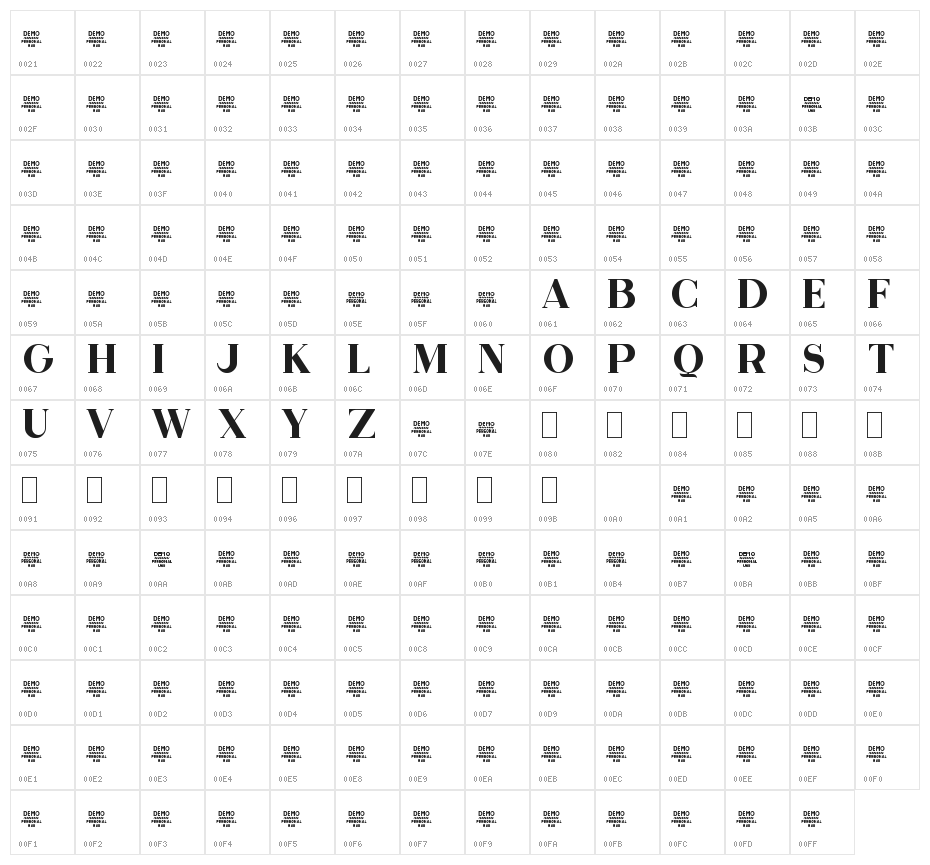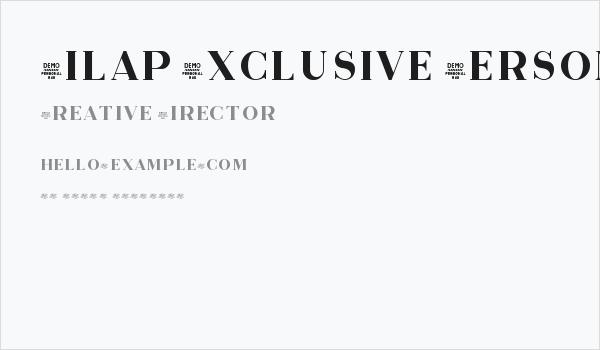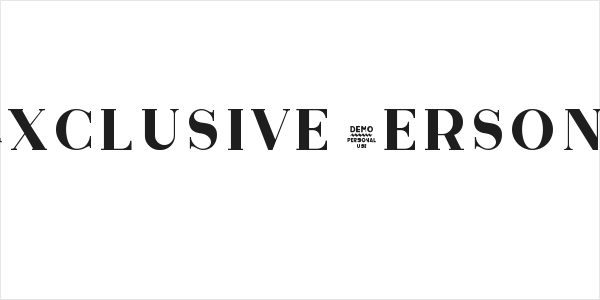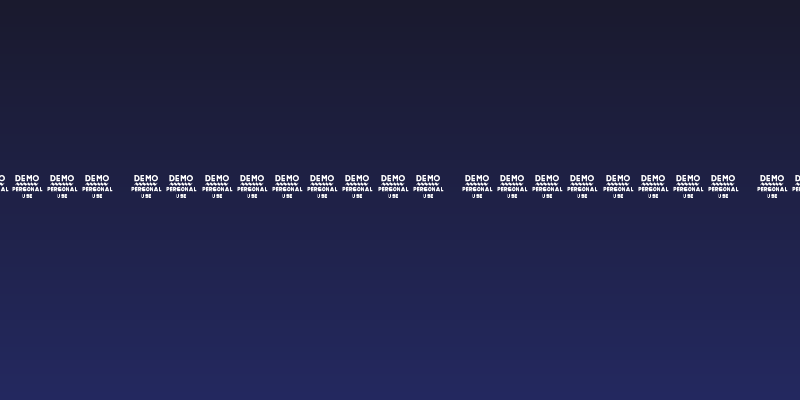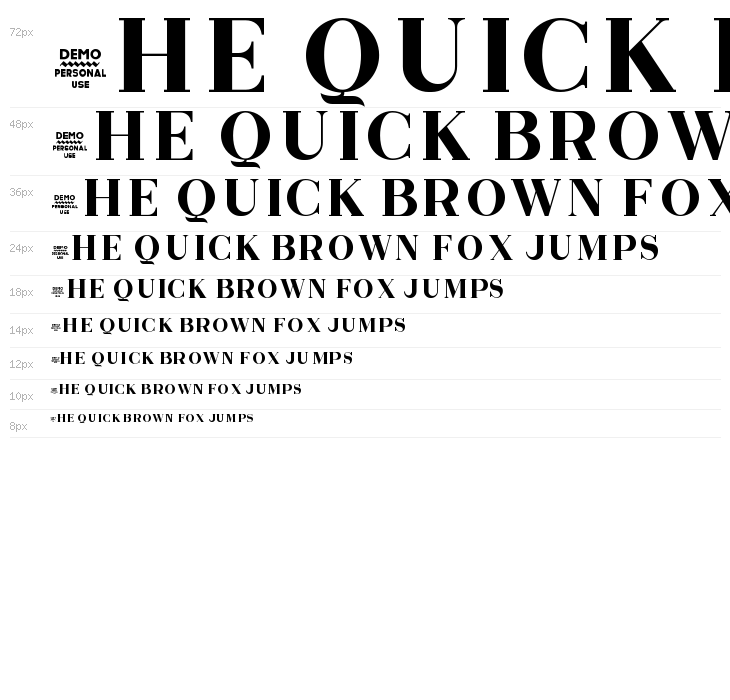
This font features a bold and striking serif design, characterized by its strong, thick strokes and sharp, angular serifs. The uppercase letters are particularly prominent, with a commanding presence that makes them ideal for attention-grabbing headlines. The lowercase letters maintain a consistent style, offering a harmonious balance between elegance and readability. The numerals are equally bold, ensuring they stand out in any context. Special characters are designed with the same attention to detail, providing a cohesive look across all glyphs. This font's classic yet modern aesthetic makes it versatile for various design applications.
| Proposed Projects | Ideal for branding, editorial design, posters, and any project requiring a strong typographic presence. |